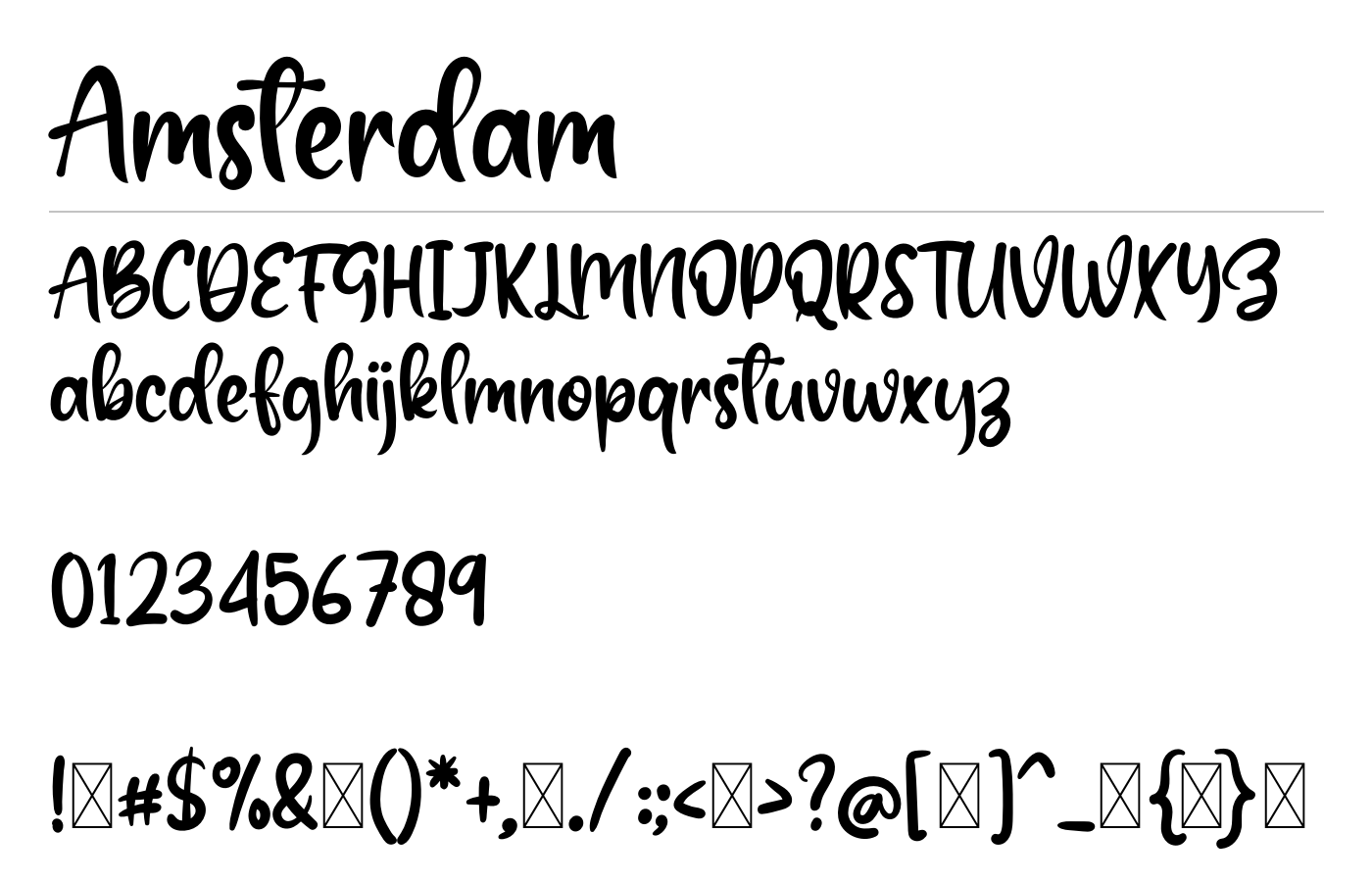
Amsterdam Font is a casual, handwritten script with a lively and friendly feel, characterized by bold strokes and smooth, rounded edges. Its natural flow and playful letterforms make it ideal for creative and informal branding, packaging, or invitations where a personal touch is desired. This font works well for headlines and decorative text that aims to convey warmth and approachability.
Amsterdam Font
About Amsterdam Font